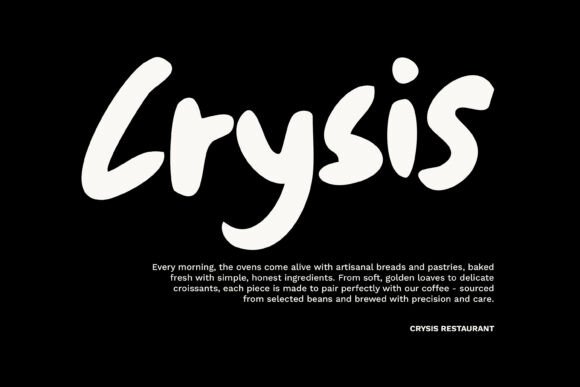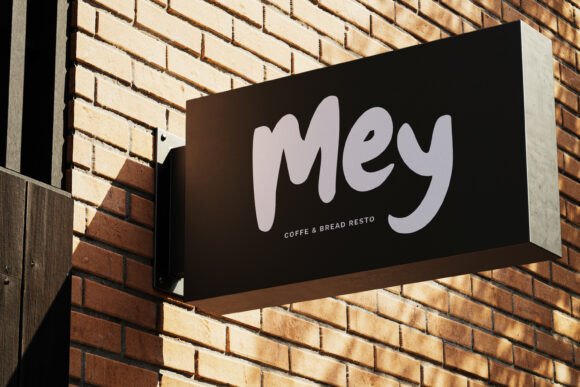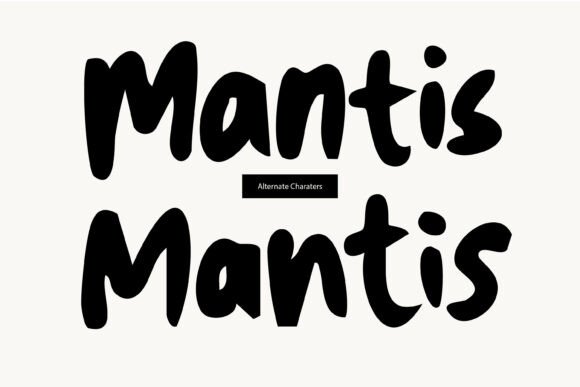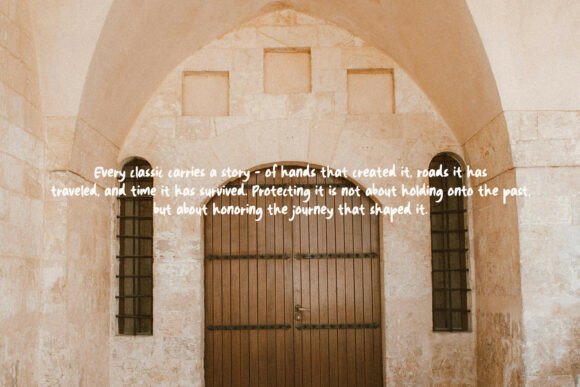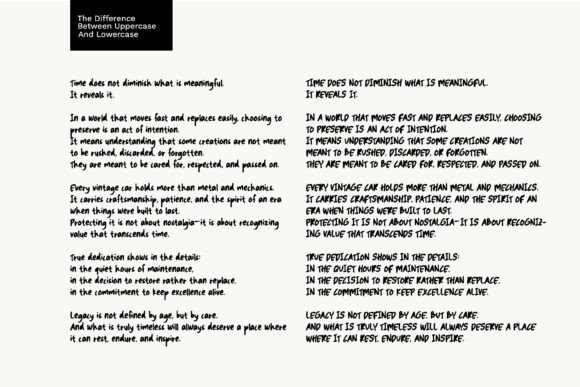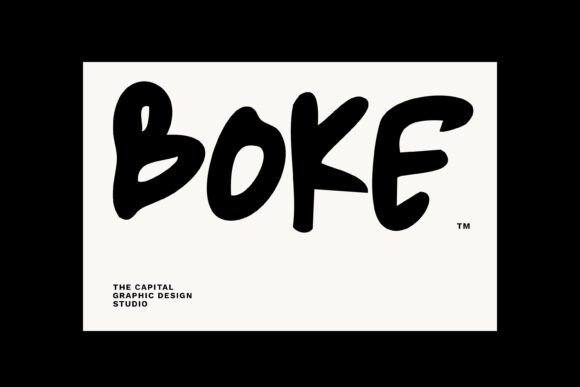
Introduction to Puckers Font
Remember that moment when you first scribbled down an idea for a creative project, and the words flowed effortlessly onto the page? The feeling of unbridled expression and freedom is what drives designers to push the boundaries of their craft. For those seeking to infuse their work with raw energy and personality, there’s Puckers Font – an experimental handwriting font that’s about to revolutionize the way you approach typography.
Designed to evoke the spontaneity of hand-drawn letters, Puckers Font is perfect for designers who crave high-quality, one-of-a-kind typography that stands out from the crowd. With its unique, imperfect letterforms and multiple alternates, this font is ideal for creative projects that require a touch of personality, from branding and posters to album covers and social media graphics.
Whether you’re looking to add a touch of whimsy to your design or create a bold statement, Puckers Font is the perfect design resource to elevate your creative project. And the best part? This PUA-encoded font is available for free download, giving you effortless access to all glyphs, swashes, and alternate characters – no transparent background necessary.
Key Features of Puckers Font
- Unique, hand-drawn design ideal for creative projects requiring a personal touch.
- Comes in a single weight, perfect for a variety of design needs, from logos to typography-based art.
- Designed as a versatile design resource for artists, designers, and writers looking for a unique touch.
Honest Review: Puckers Font
As a designer, I’m always on the lookout for high-quality design resources to elevate my creative projects. Recently, I had the chance to try out the Puckers Font, and I’m excited to share my thoughts.
Here’s what works well: ✨ The Puckers Font is incredibly versatile, making it perfect for a wide range of creative projects. Its modern and playful style lends itself well to designs that need a touch of whimsy. I also appreciate the fact that it’s available for free download, making it an excellent design resource for those on a budget.
While the Puckers Font is a great addition to any design toolkit, I do have a few minor criticisms: ⚠️ The font can be a bit overwhelming if used in excess, so be sure to use it in moderation to avoid visual overload. Additionally, some users may find the font’s unique style to be a bit too playful for more serious or professional designs.
Overall, I’m impressed with the Puckers Font and would definitely recommend it to fellow designers. Its versatility and high quality make it an excellent choice for a wide range of creative projects.